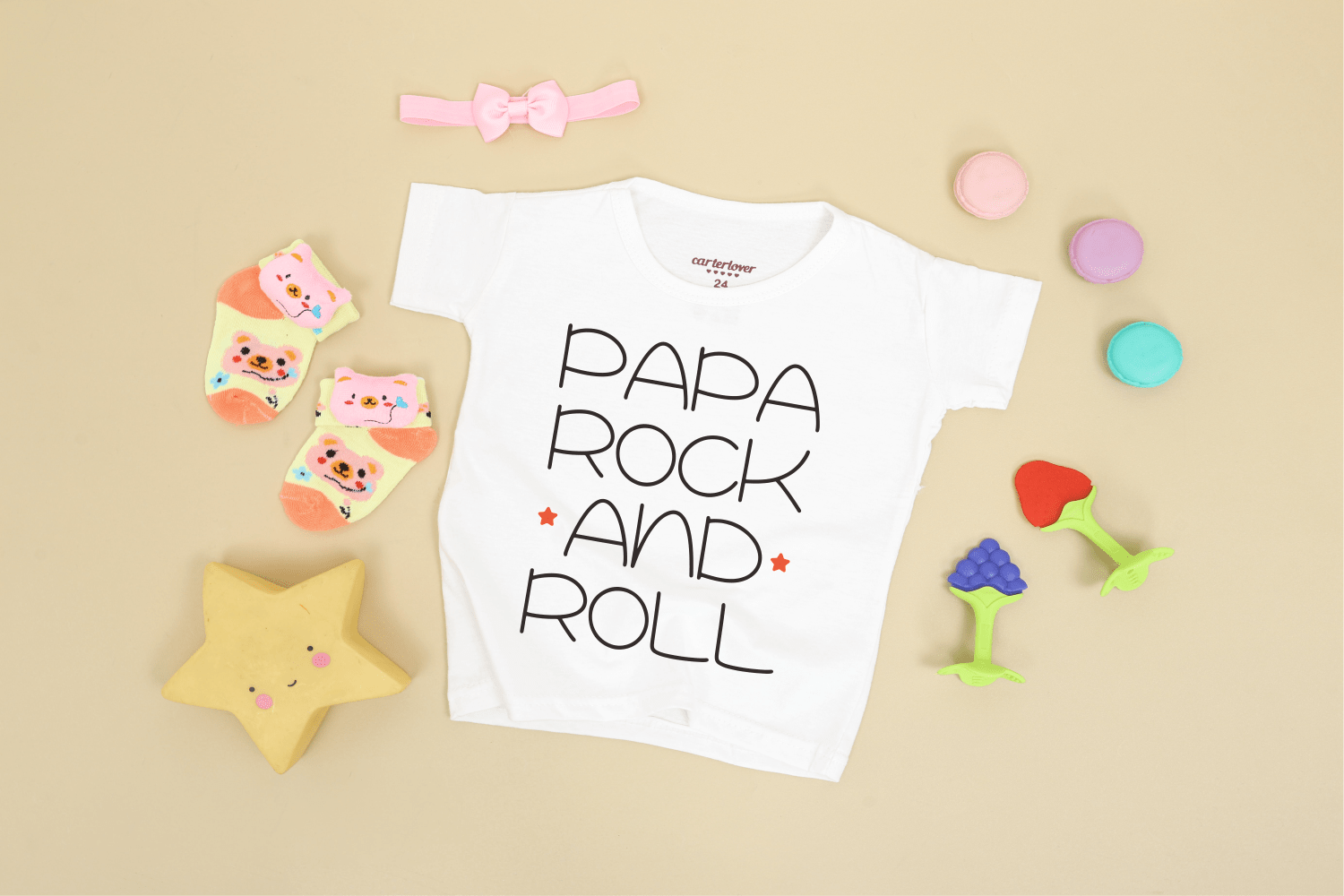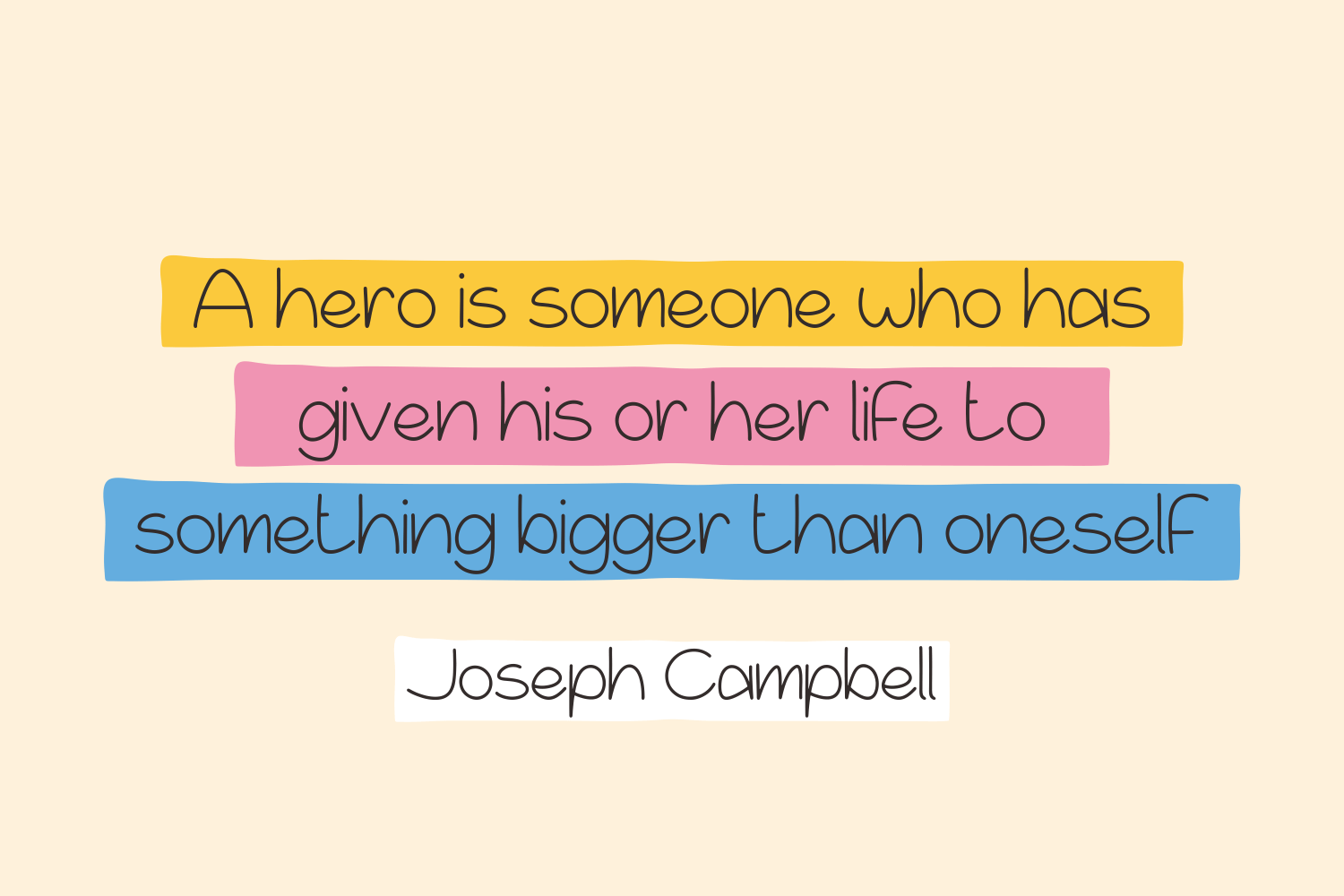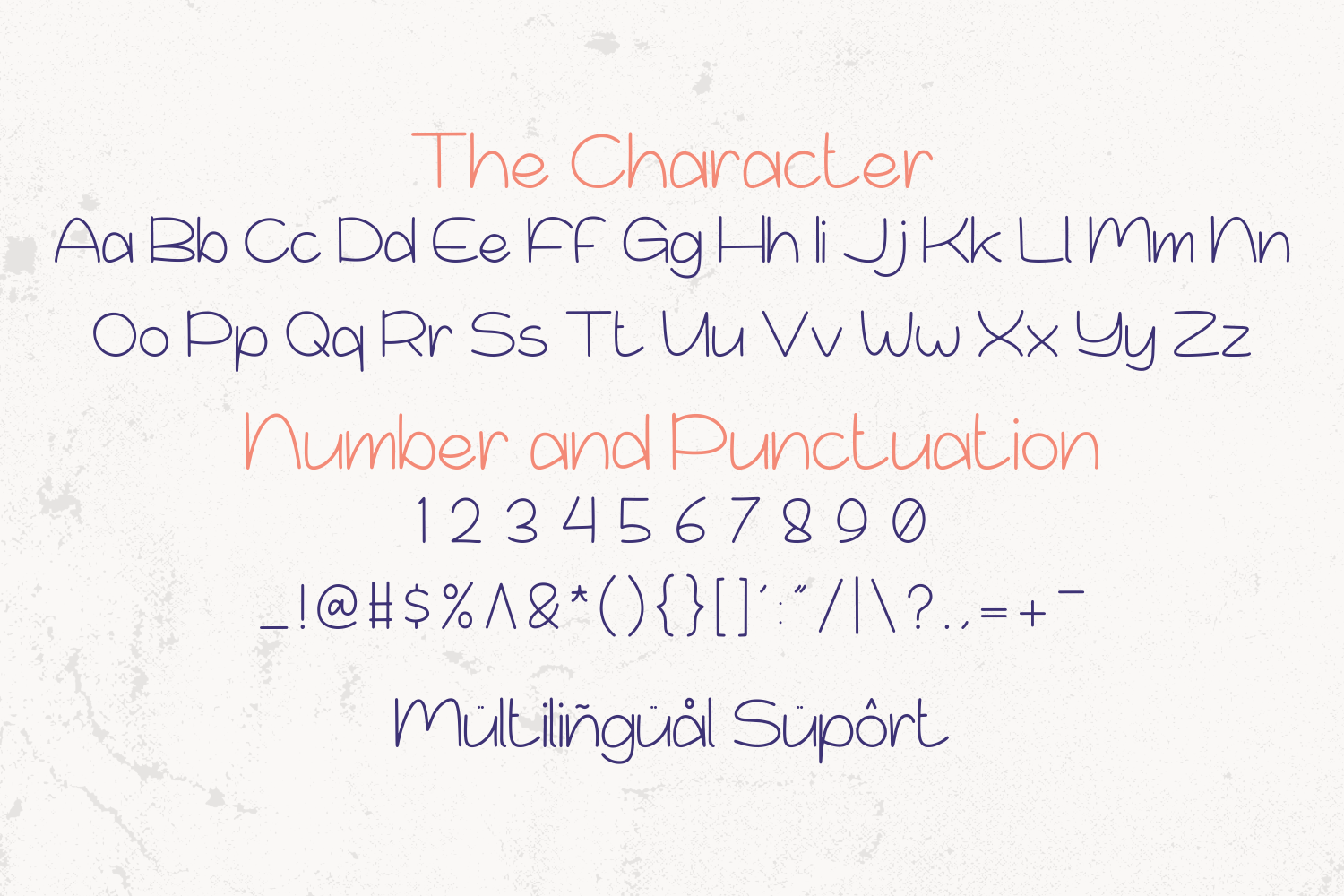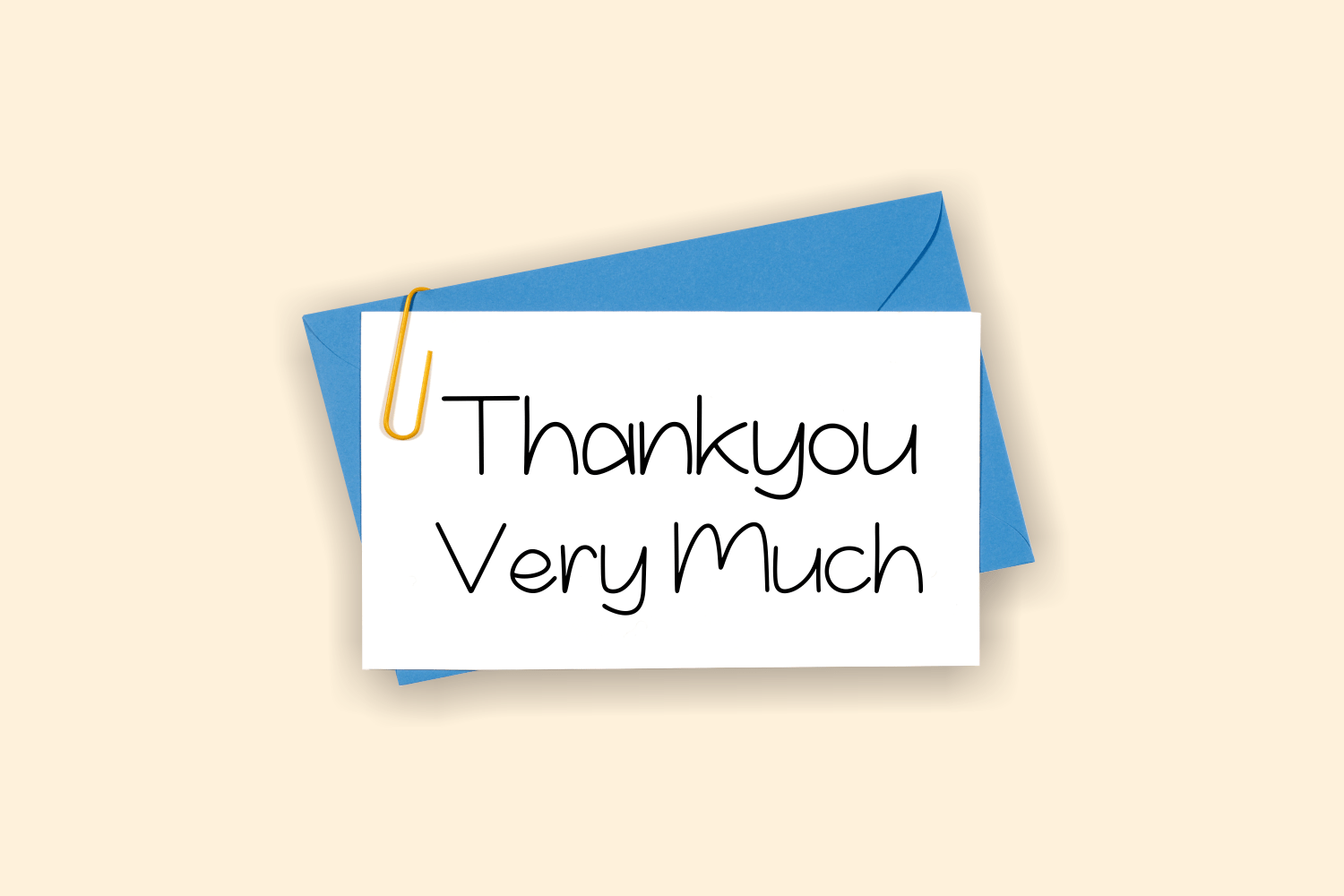
Rofella Font
Rofella Display Font is a modern and beautiful handwritten script font! Great for wedding greeting cards, logos, branding materials, Invitation, business cards, quotes, posters, Cricut artwork and more!